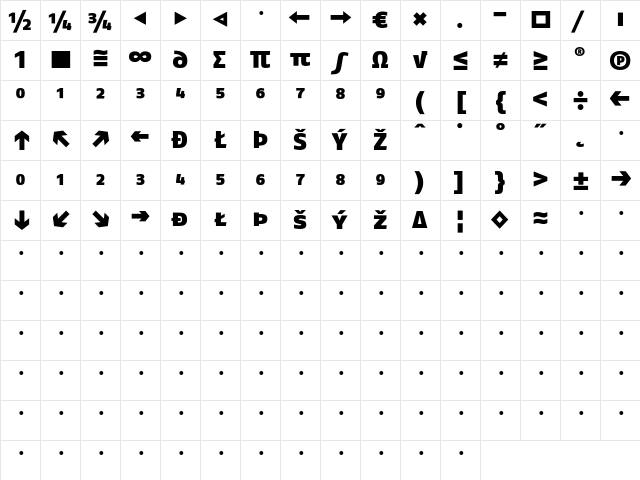
FagoEx BlackCapsExp
Design Context for FagoEx
FagoEx is a composed and adaptable typeface that performs quietly and consistently across a wide range of design contexts.